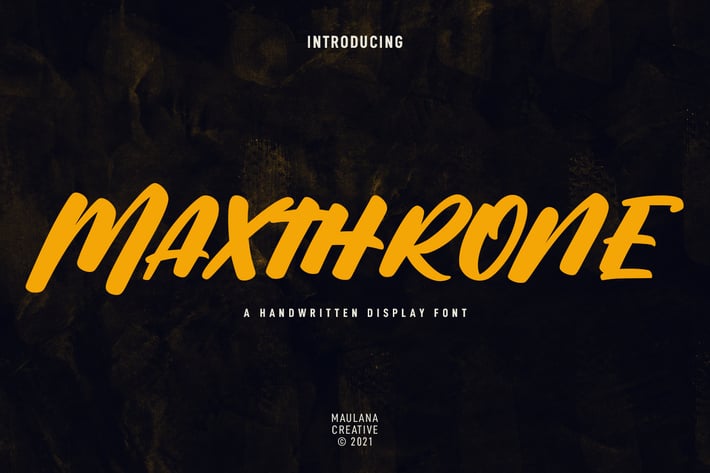
Maxthrone Handwritten Display Font
Maxthrone is a slanted handwritten display font. With bold stroke, fun character with a bit of ligatures. To give you an extra creative work. Maxthrone font support multilingual more than 100+ language. This font is good for logo design, Social media, Movie Titles, Books Titles, a short text even a long text letter and good for your secondary text font with sans or serif. Make a stunning work with Maxthrone font.